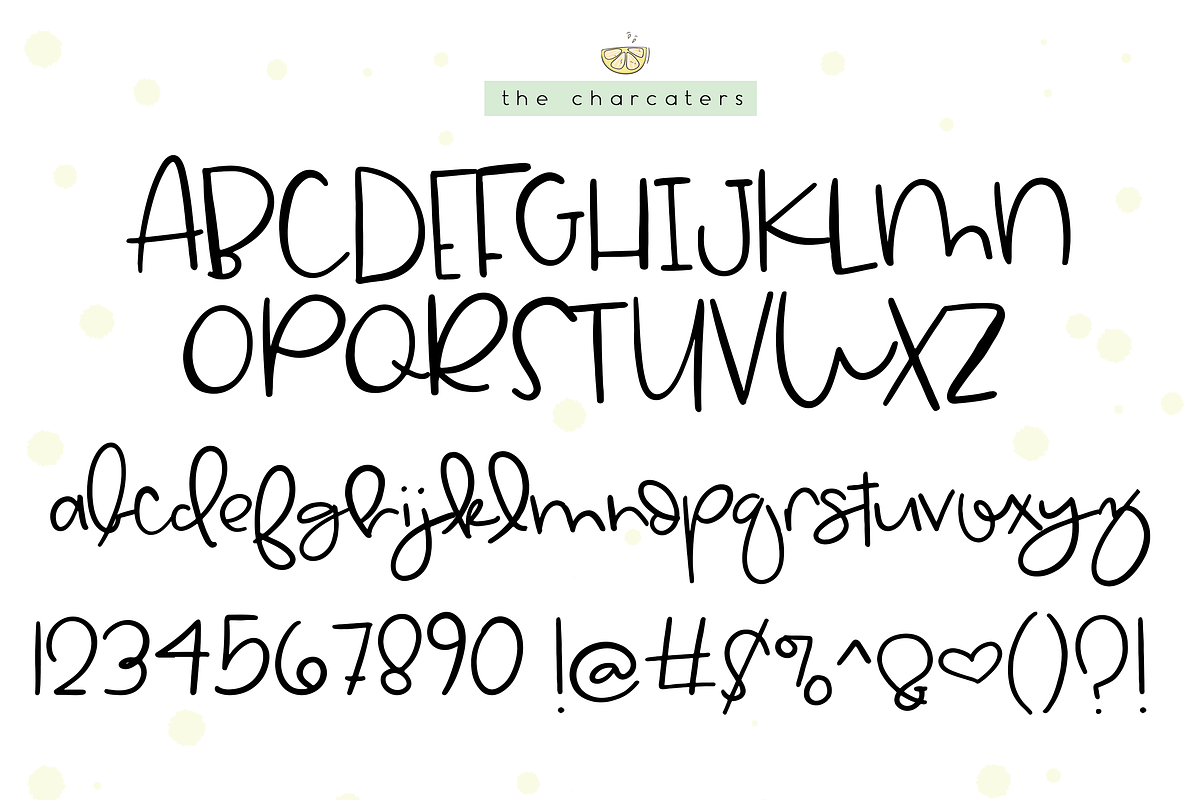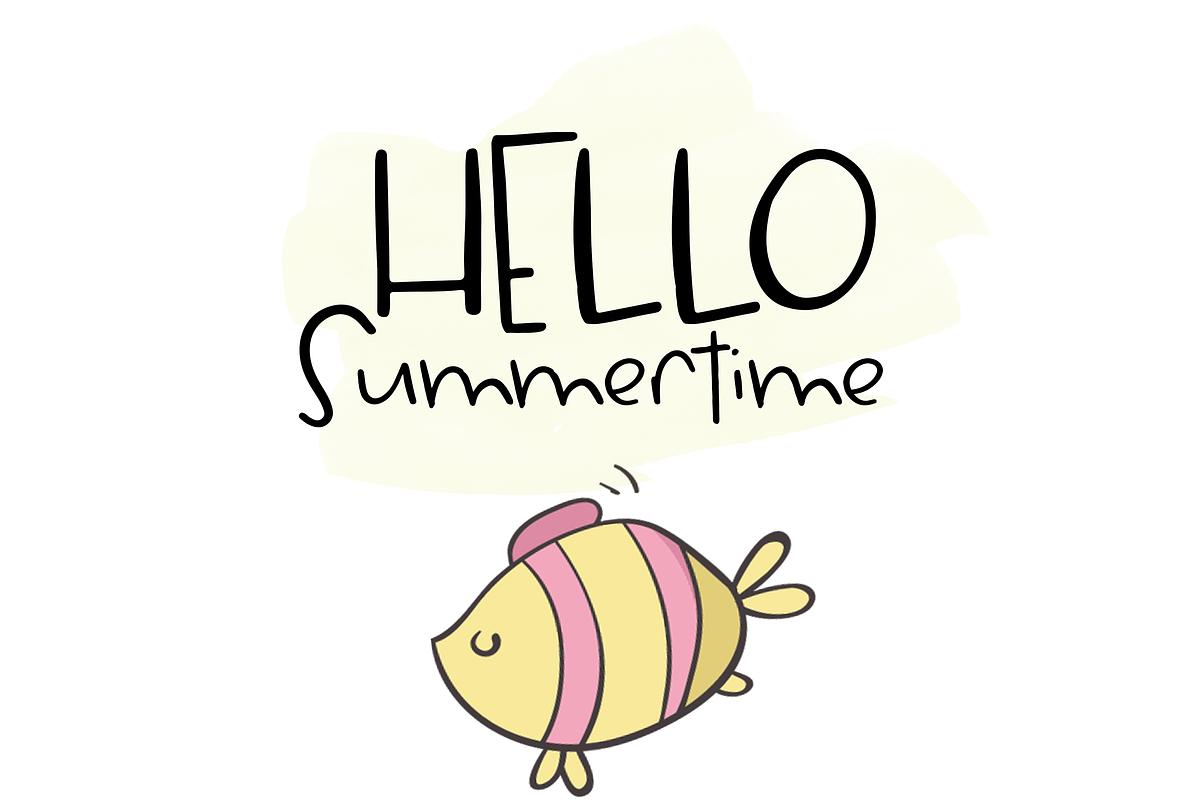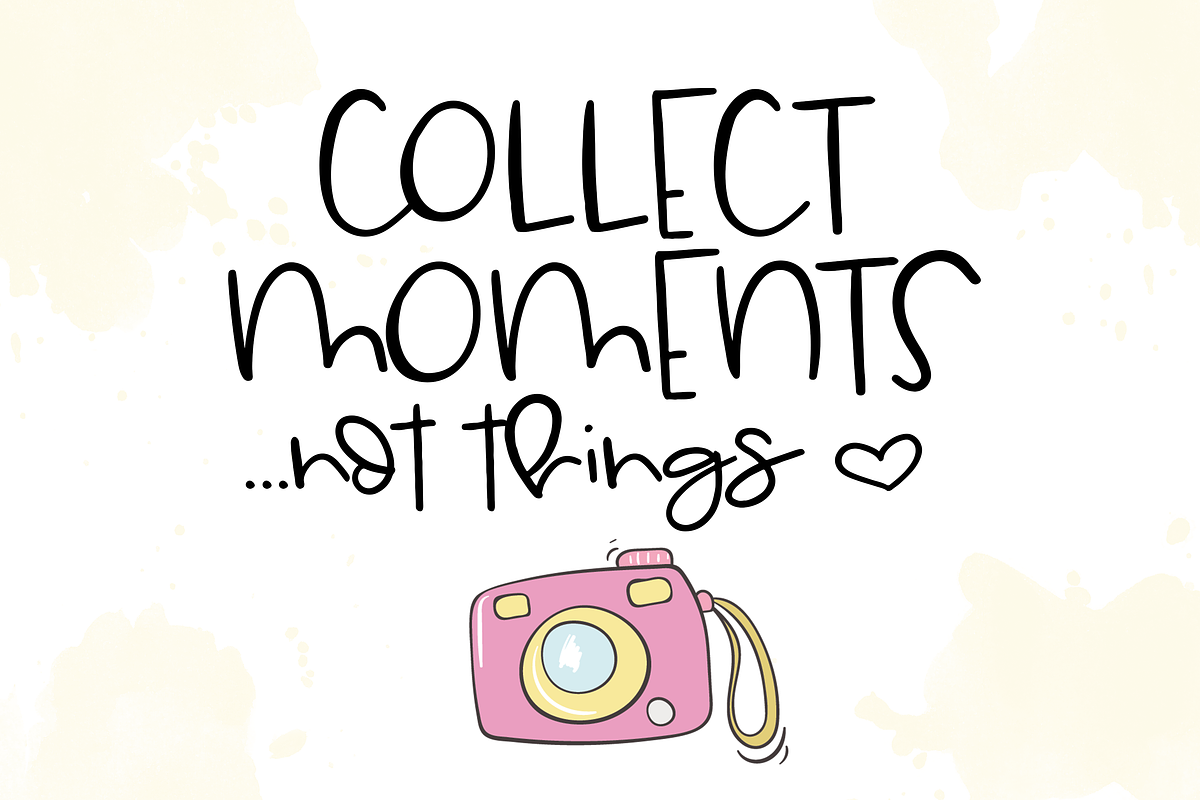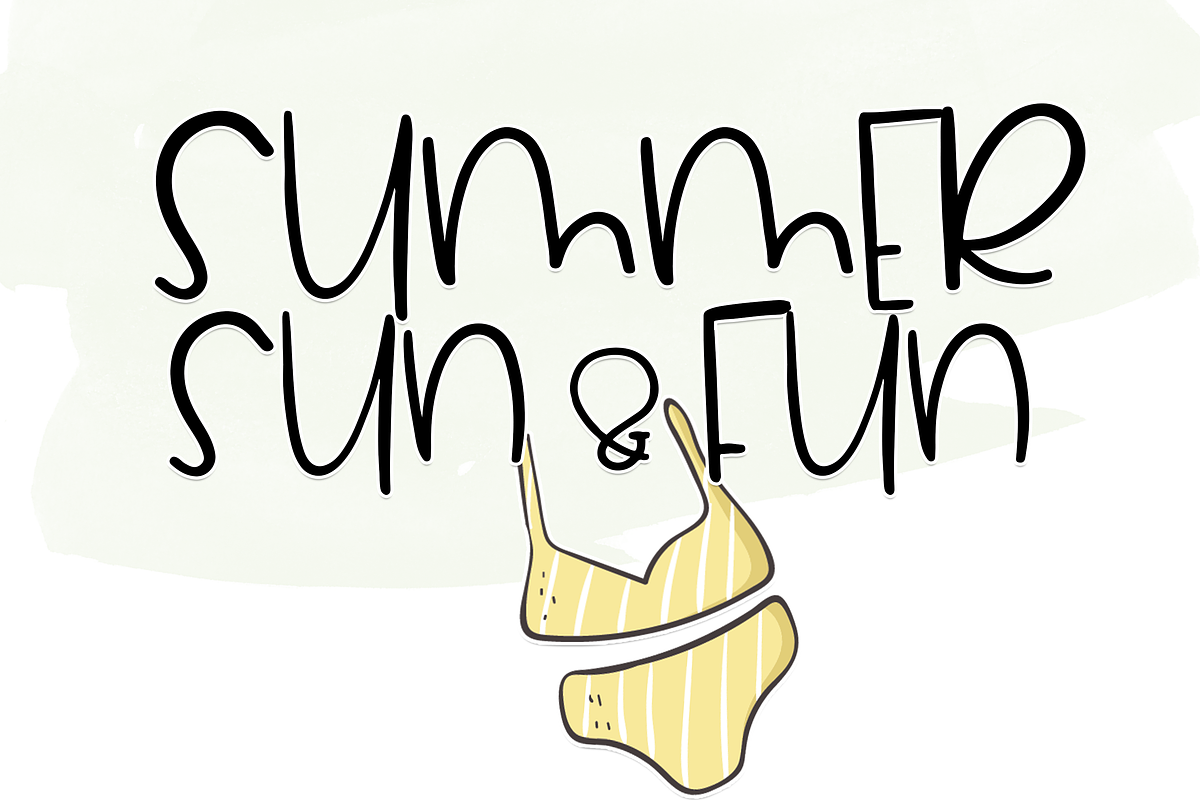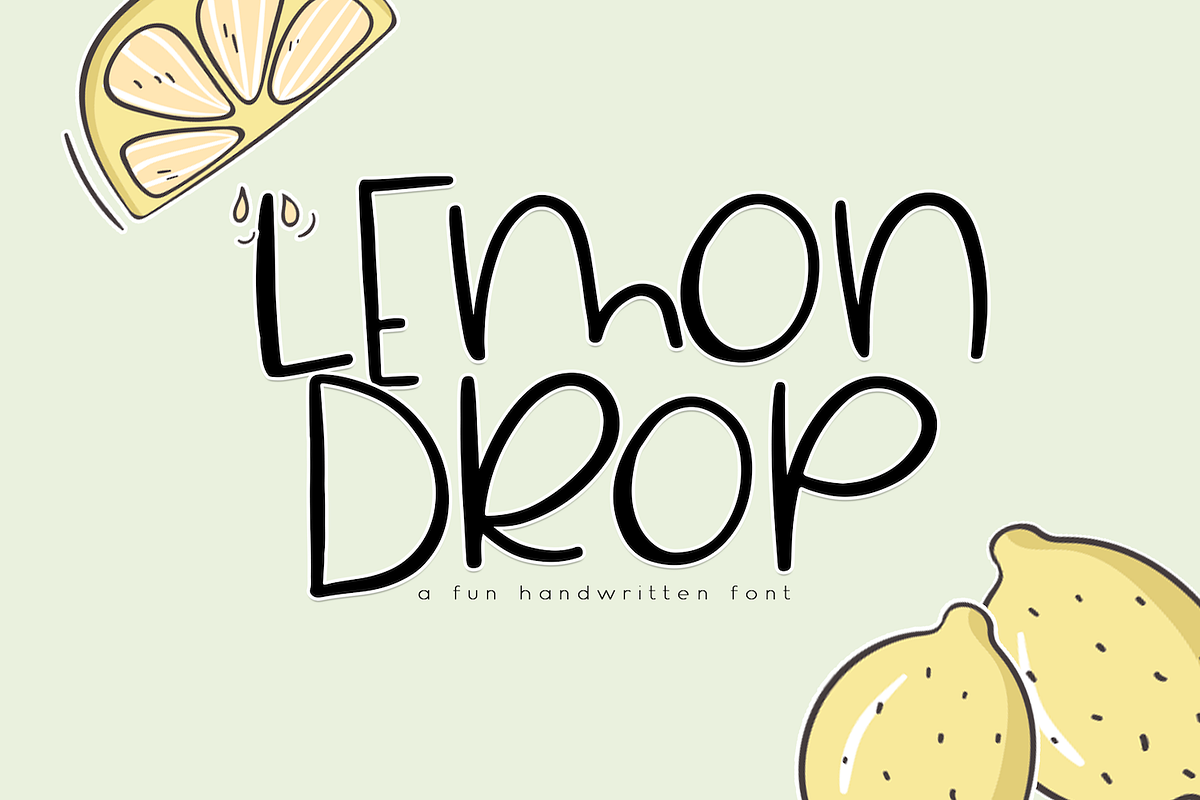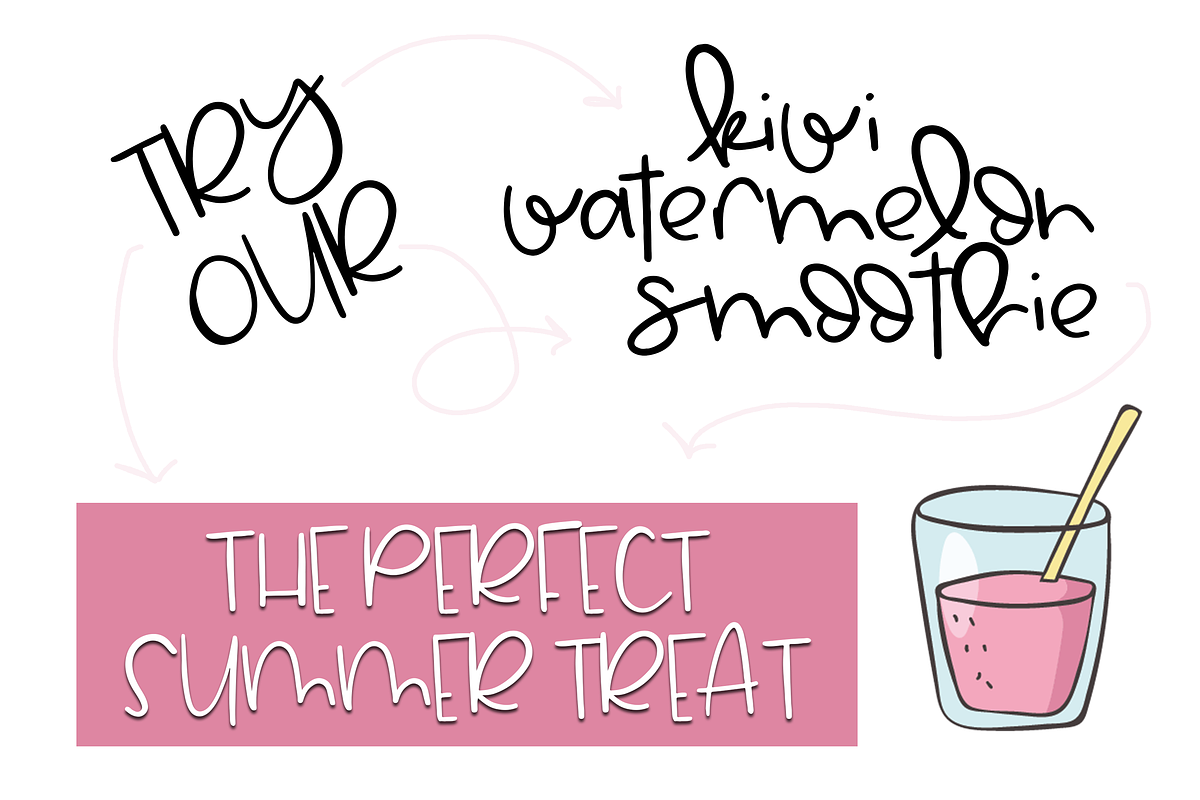
Lemon Drop - Fun & Quirky Font
Lemon Drop is a cute handwritten font. This font is perfect for quotes, headings, blogs, logos, invitations and more! It is also great for children's designs!
It looks great in ALL CAPS!
Or you can type with the lowercase letters for a completely different look! :)
This font does not include accent characters.